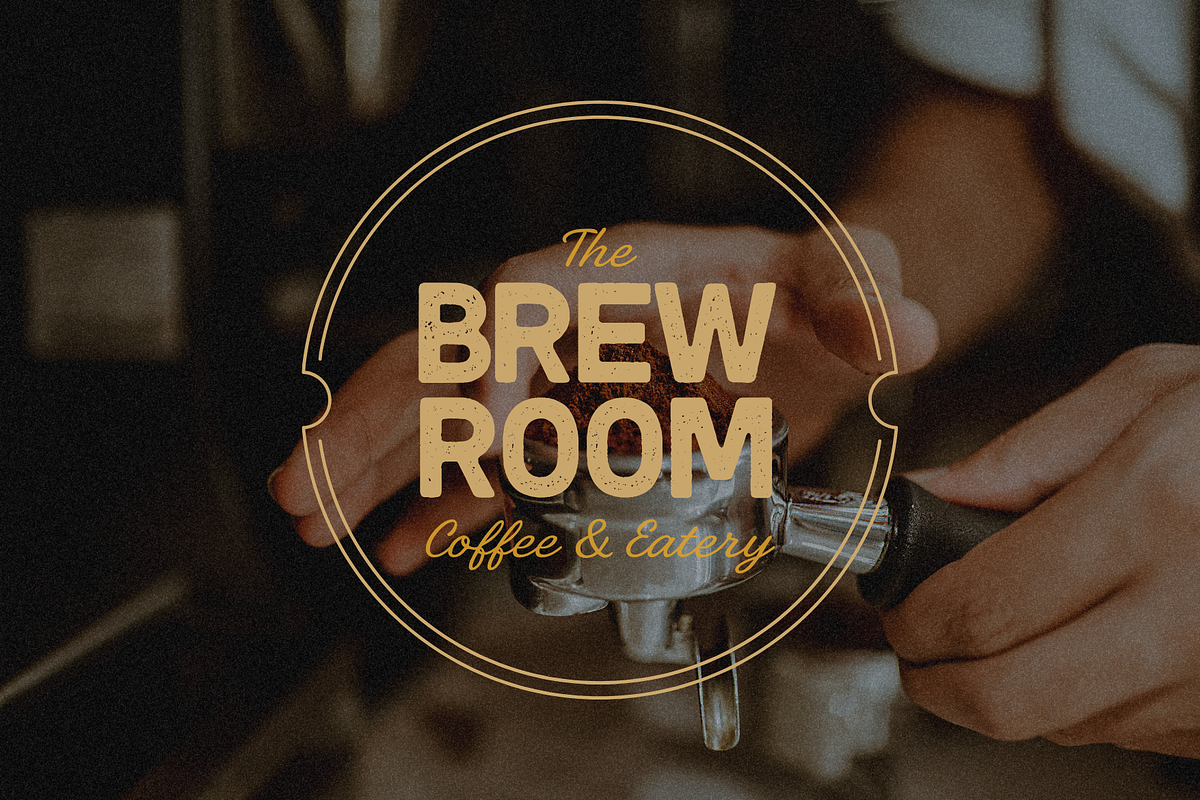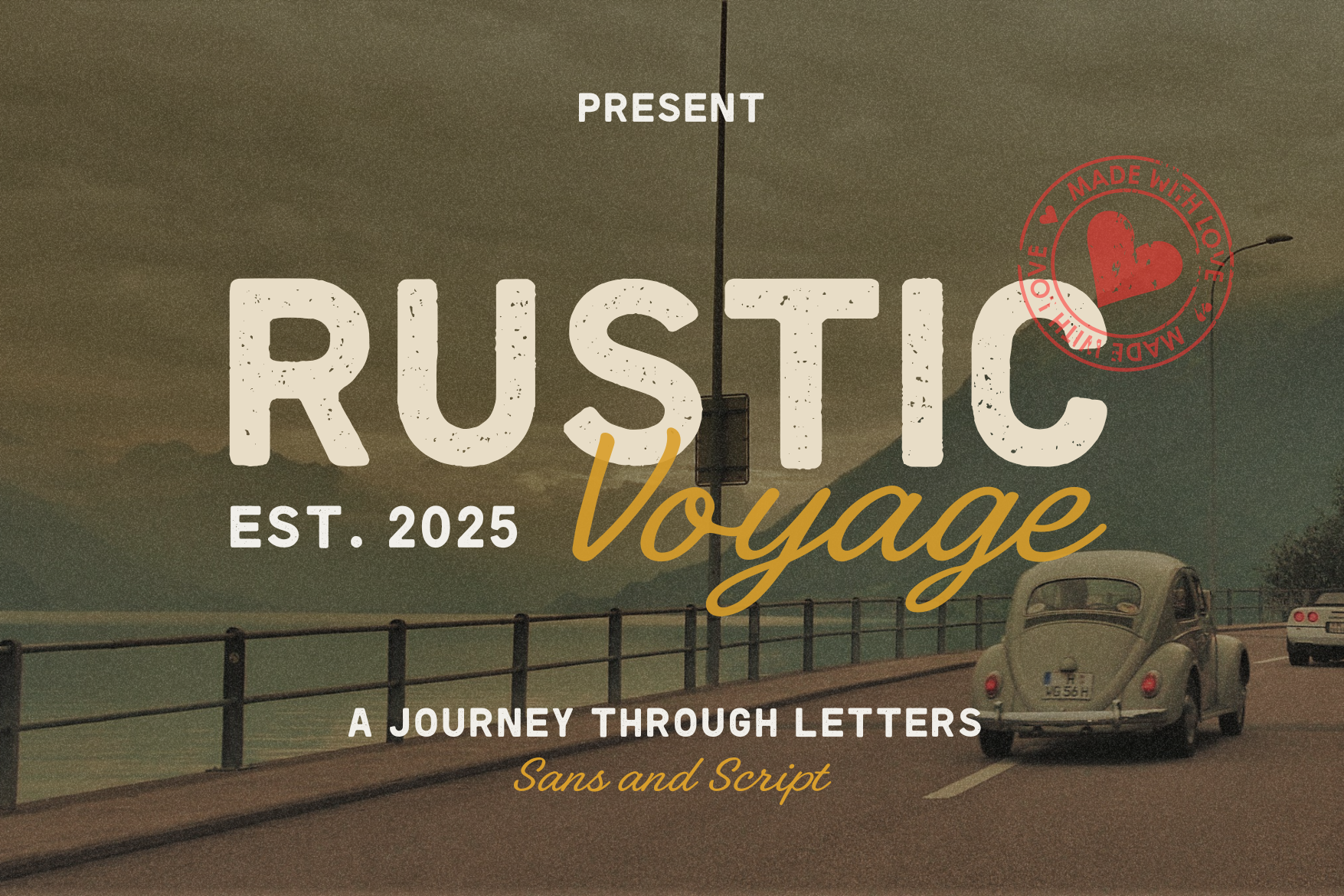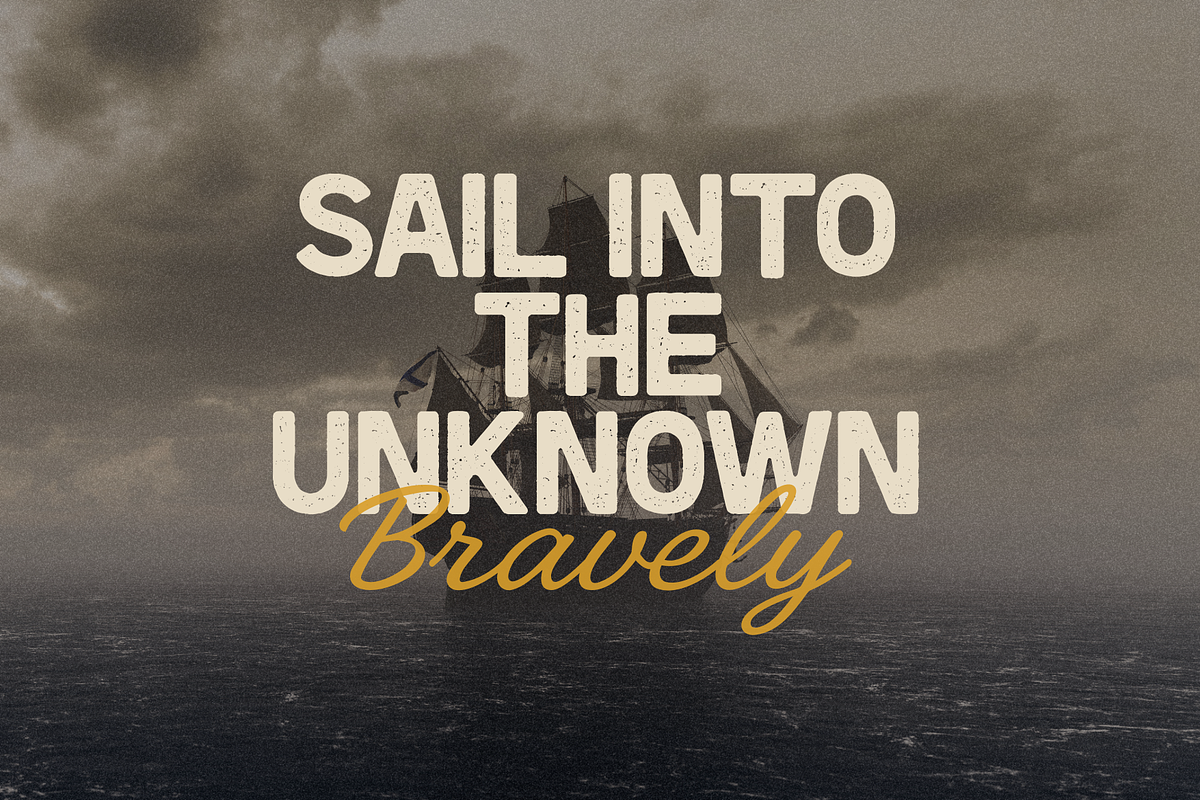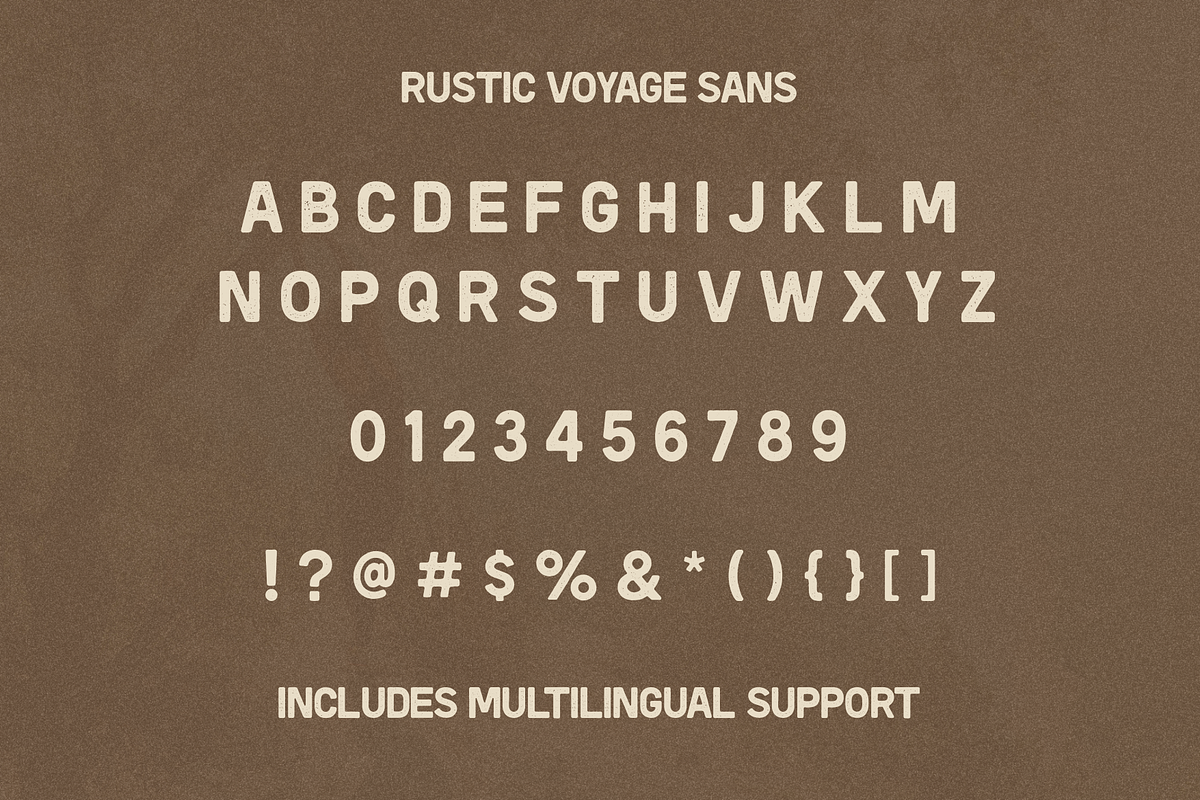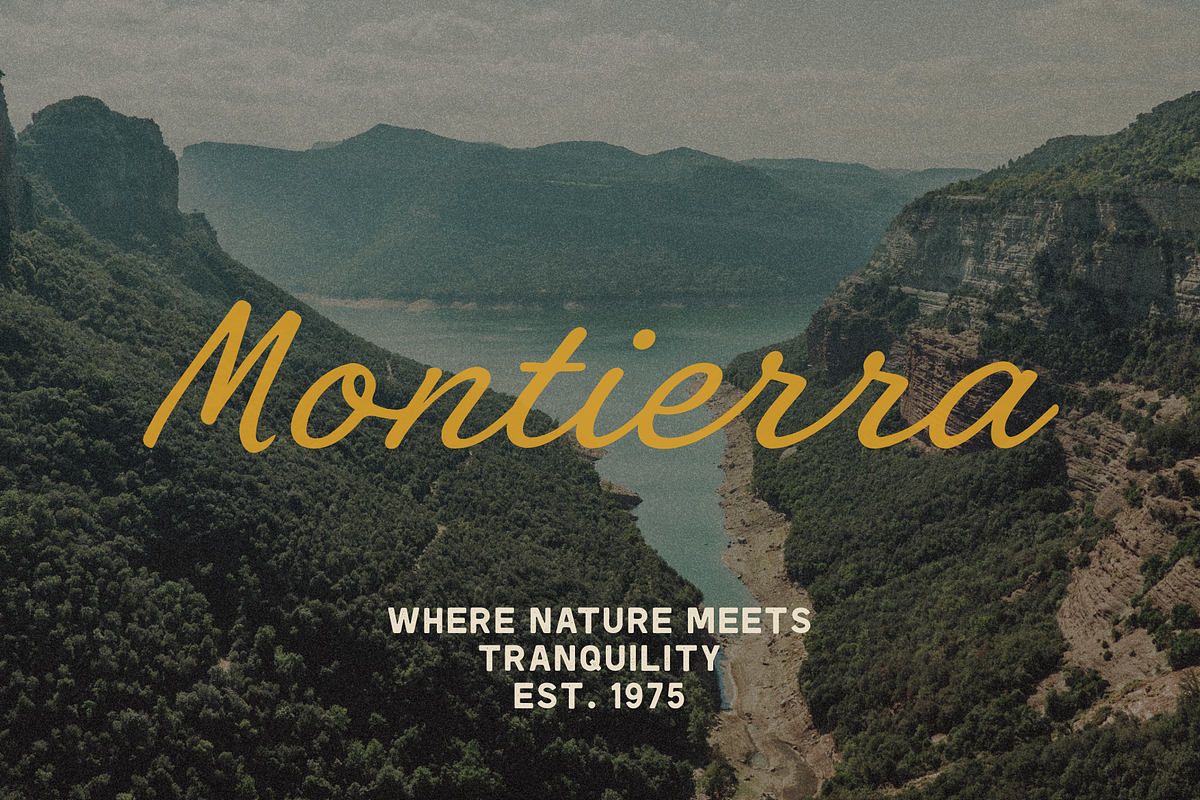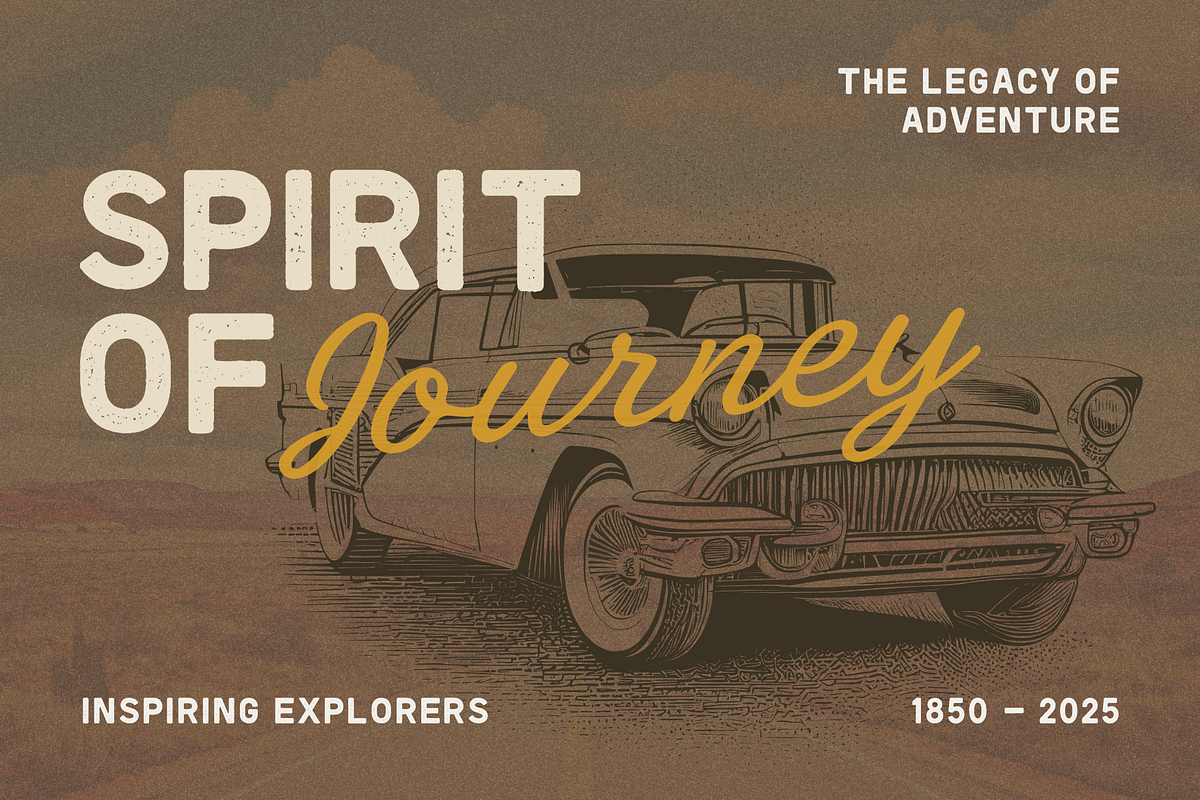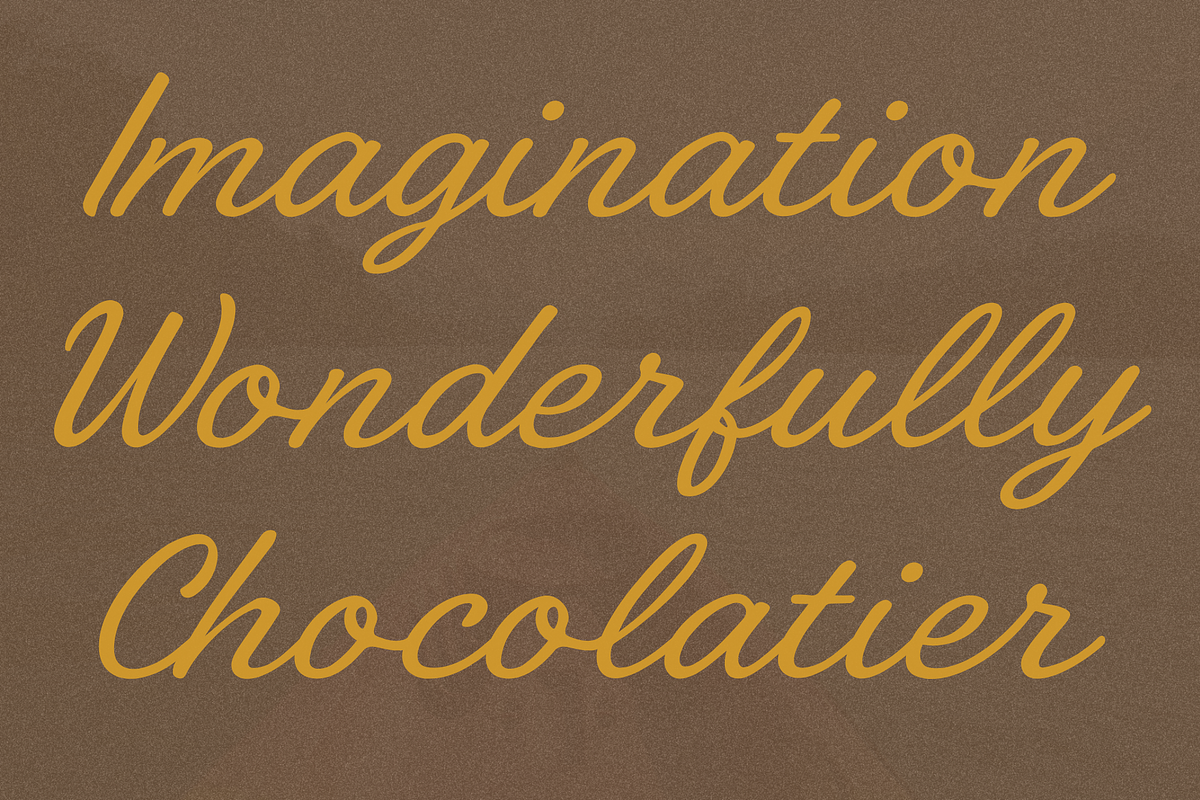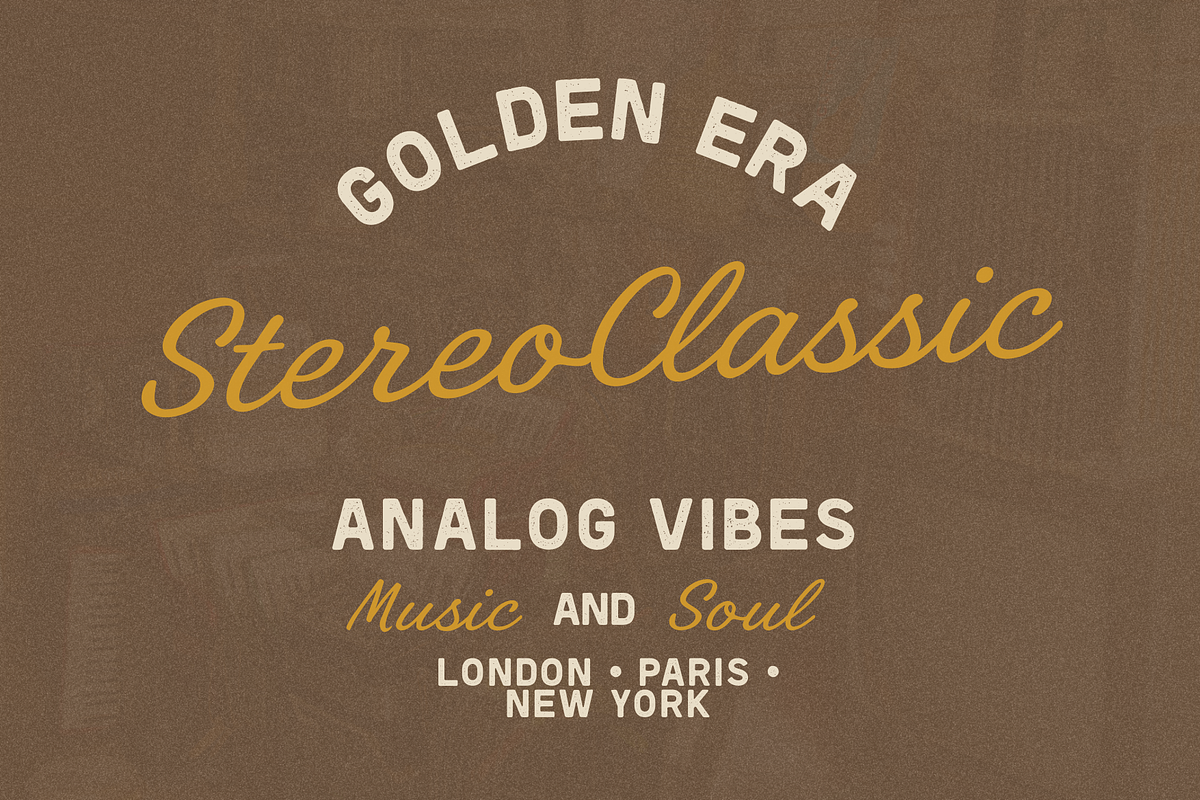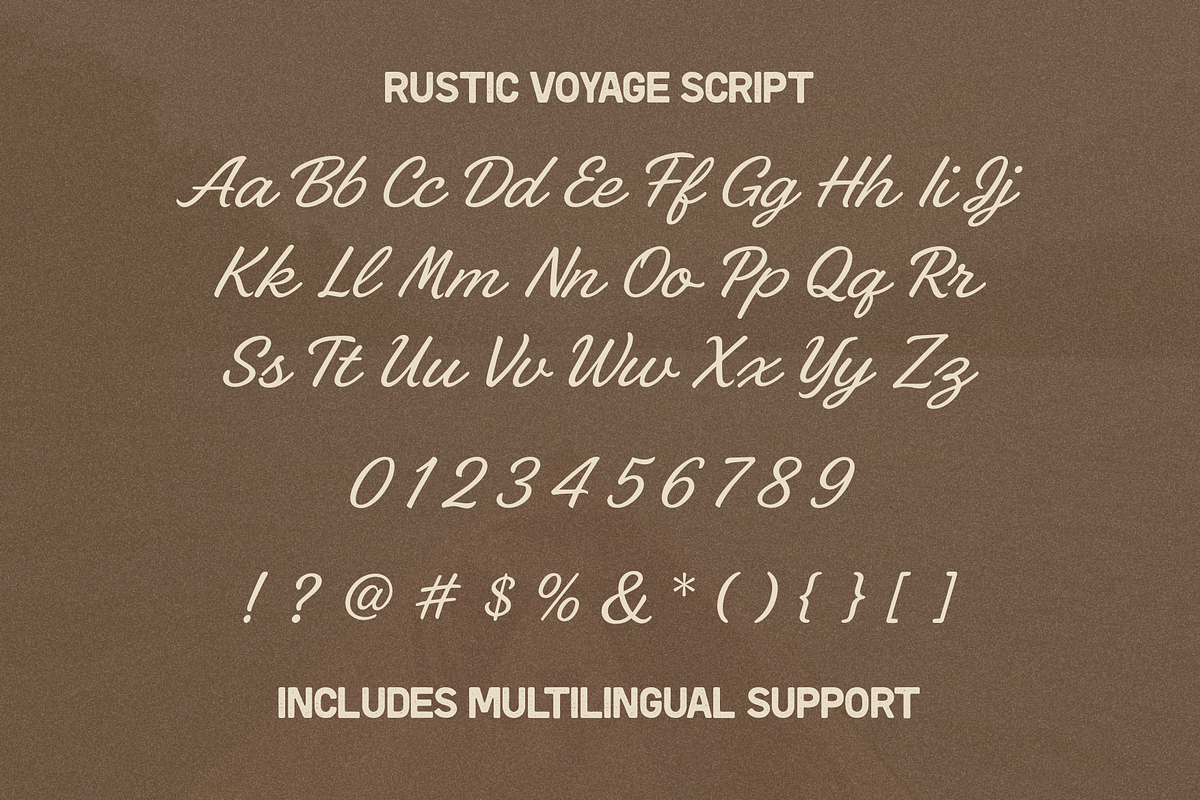
Rustic Voyage – Font Duo
Rustic Voyage is a versatile font duo that combines a bold textured sans serif with a warm and elegant script. Inspired by classic adventures, retro travel posters, and artisan café aesthetics, this typeface brings a sense of nostalgia, adventure, and timeless charm to any design project.
What’s Inside:
Rustic Voyage Sans Strong, bold, and slightly distressed for a classic vintage feel. Perfect for headlines, signage, posters, and branding.
Rustic Voyage Script Smooth, flowing, and full of character. Pairs beautifully with the sans for taglines, quotes, and logos.
- Uppercase & lowercase letters, numbers, and full punctuation
- Complementary duo style (Sans + Script)
- Retro vintage look with a modern touch
- Ideal for branding, packaging, travel posters, café identity, apparel, and social media graphics
- Logos & Branding
- Vintage Posters
- Adventure & Travel Designs
- Coffee Shop & Restaurant Identity
- Retro Packaging
- Social Media Templates
✨ With Rustic Voyage, every design feels like a timeless journey—classic, adventurous, and stylishly retro.